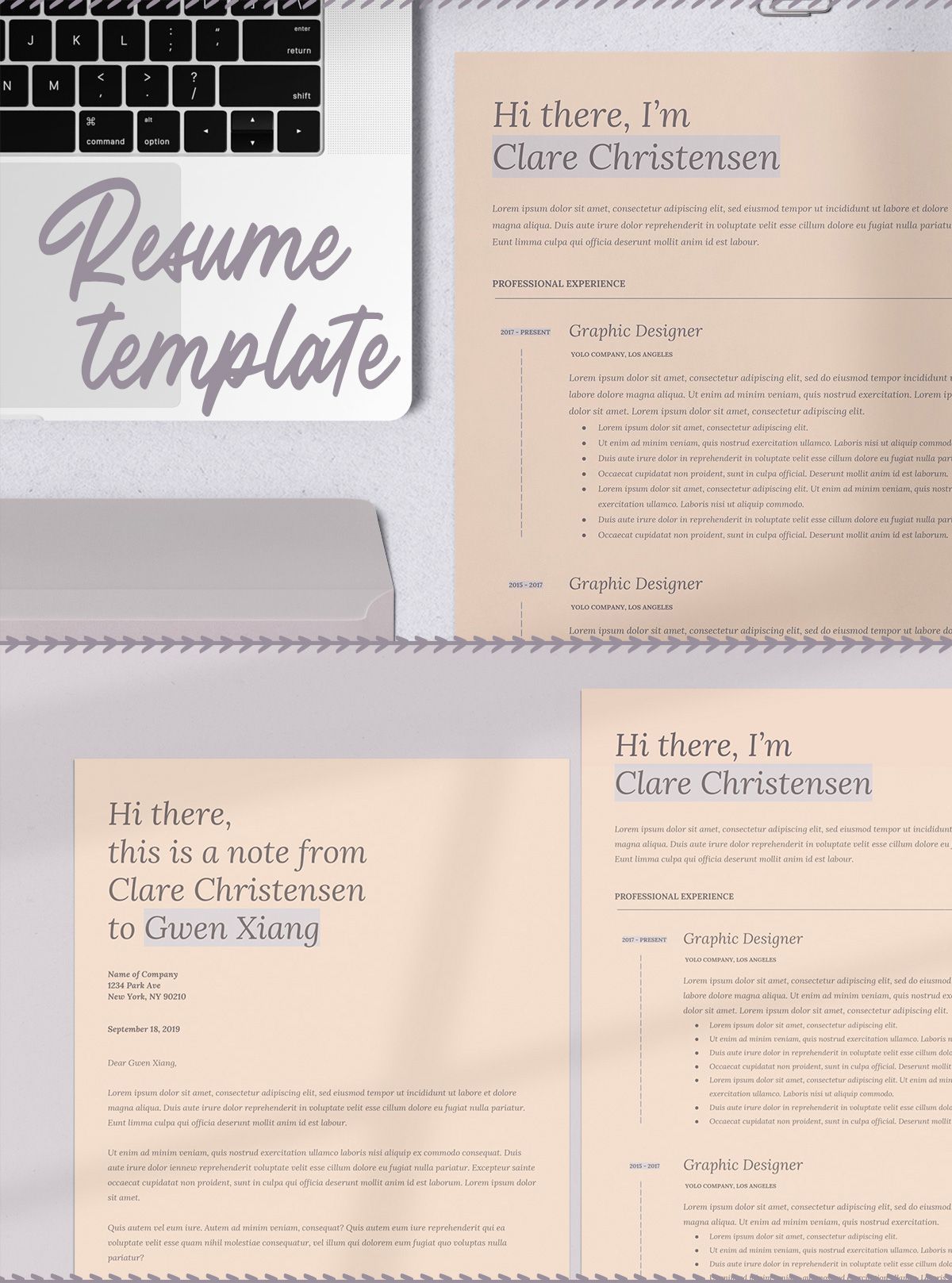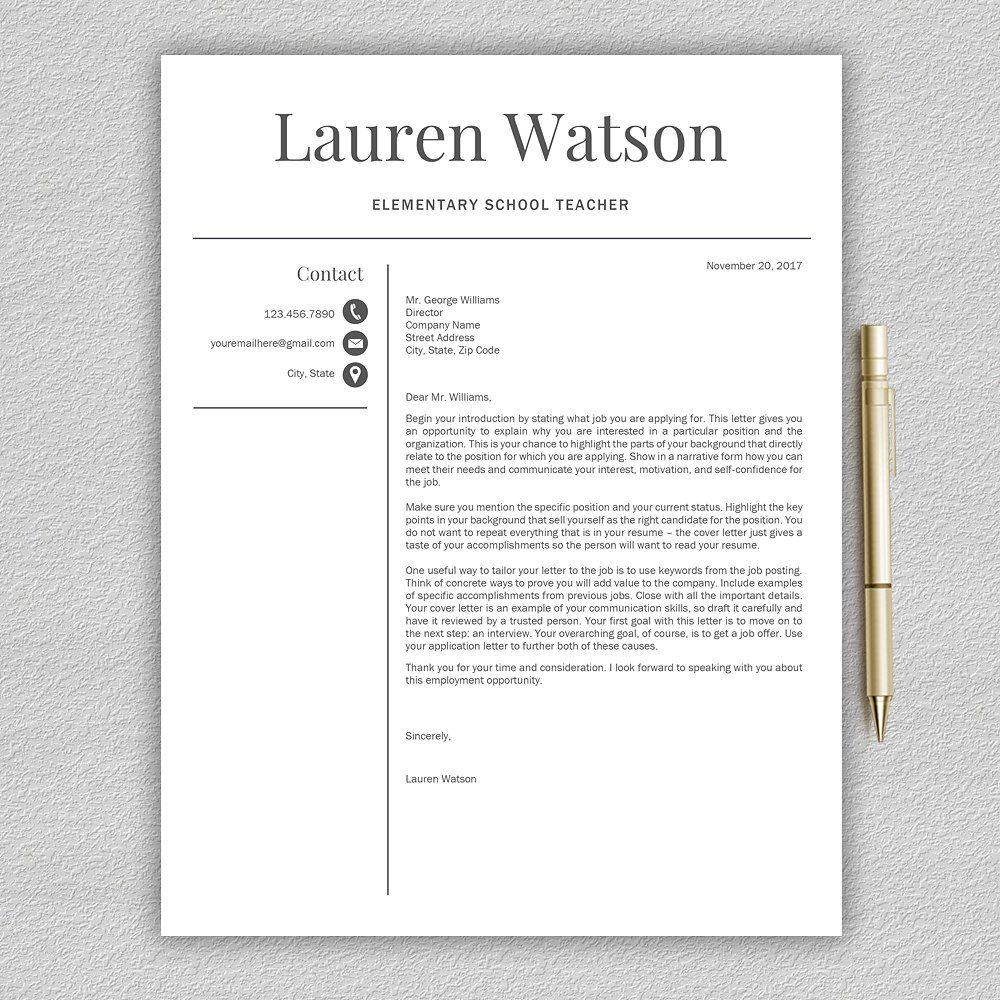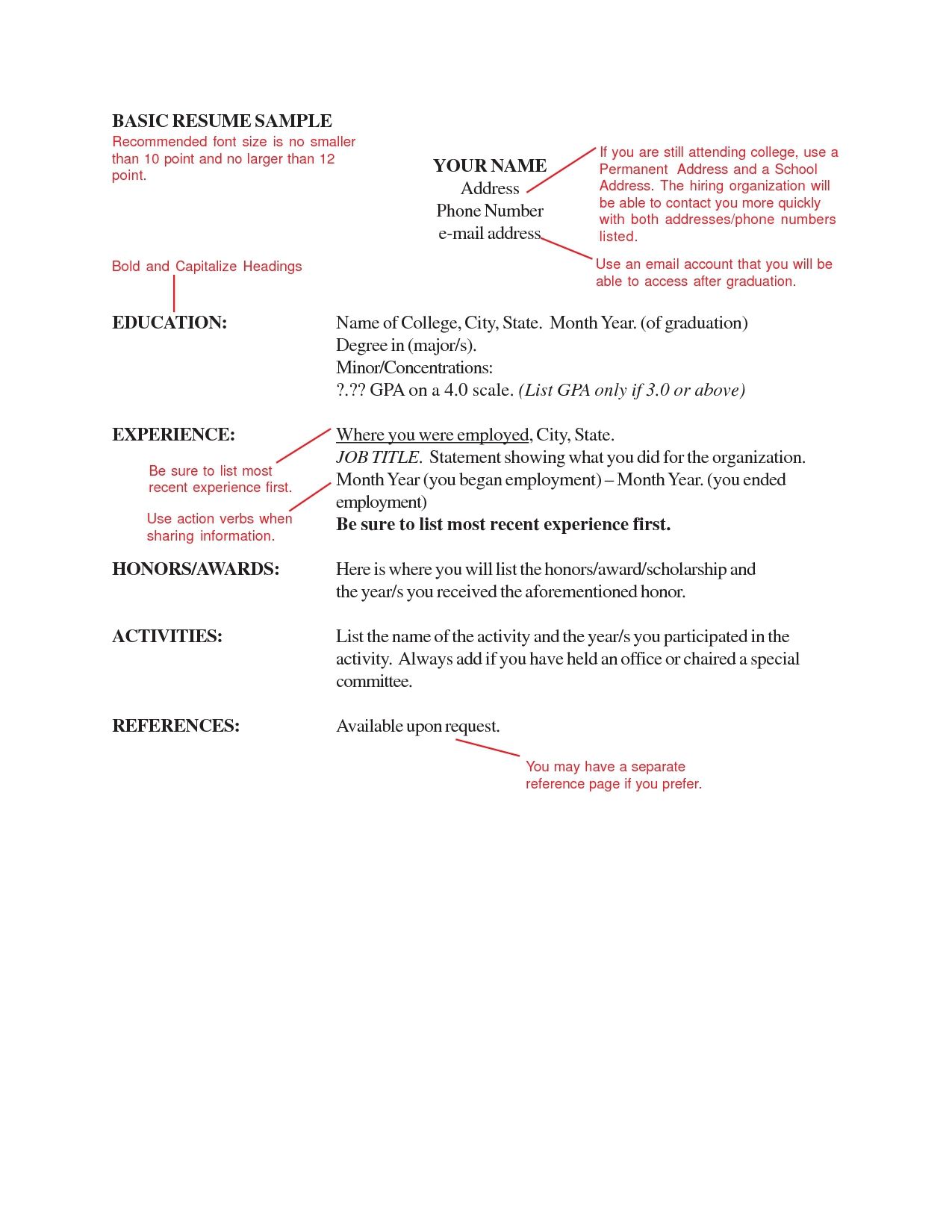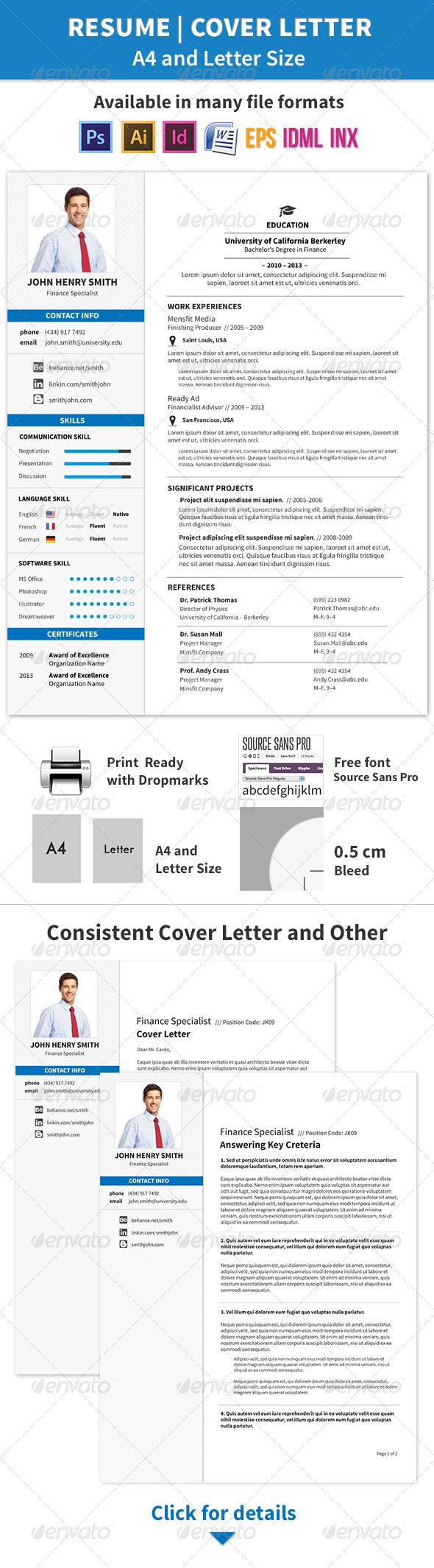
Sample Cover Letter Font Size
The font size should be set to 12pt and it's best to limit yourself to just one typeface.
Sample cover letter font size. • a tailored cover letter may be used to accompany a résumé. That is consistent with your resume. Size 10, 11 or 12.
Cover letters should be around three paragraphs long and include specific examples from your past experience that make you qualified for the position. Here are a few tips to make your résumé more effective: Sample registered nurse cover letter ;
Avoid text boxes, underlining, and shading; • do accompany your resume with a cover letter in most cases. Types of cover letter formats.
By putting your best foot forward, you can increase your chances of being interviewed. The best font for cover letter purposes is one that is clear and easy to read. Sample customer service cover letter;
• do have others look over your resume for content and grammar. Ideally, the font used in the cover letter will be both the same size and style as the one used within your resume, to help you present a cohesive package. Try some different fonts and font sizes until the letter fits onto one page.
If you have a lot of room to spare, choose a size 12 font. The most popular choices include times new roman, arial, calibri, and verdana. Highlight the content of your letter.